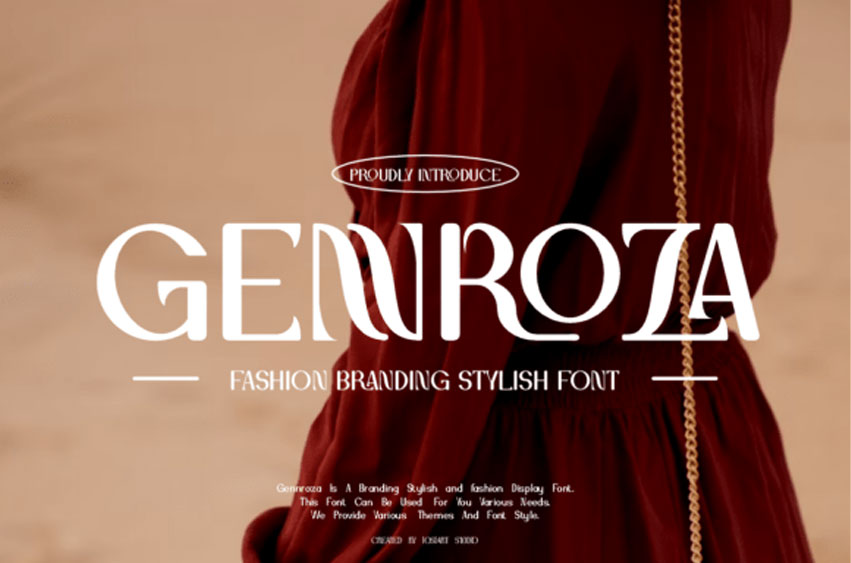
Gennroza Font
Gennroza Font is an elegant and modern display font created with fashion branding in mind. Its refined curves and signature cutouts give it a luxurious and high-end appeal, ideal for runway posters, designer logos, lookbooks, or product packaging. The bold yet graceful presence makes it stand out in stylish editorials and upscale visuals.
Genroza is the perfect blend of trend and timelessness. It supports multilingual characters and works beautifully in both digital and print, allowing you to craft bold headlines, artistic branding, and premium social media content with flair.